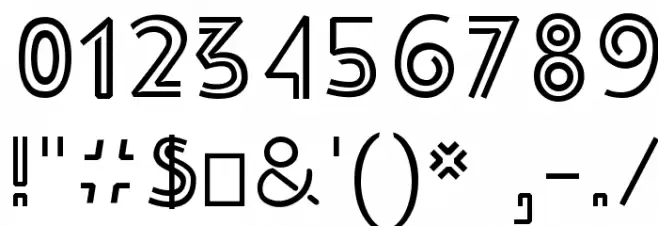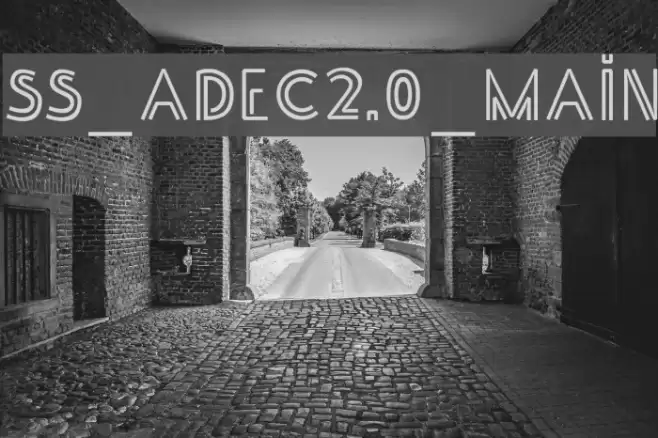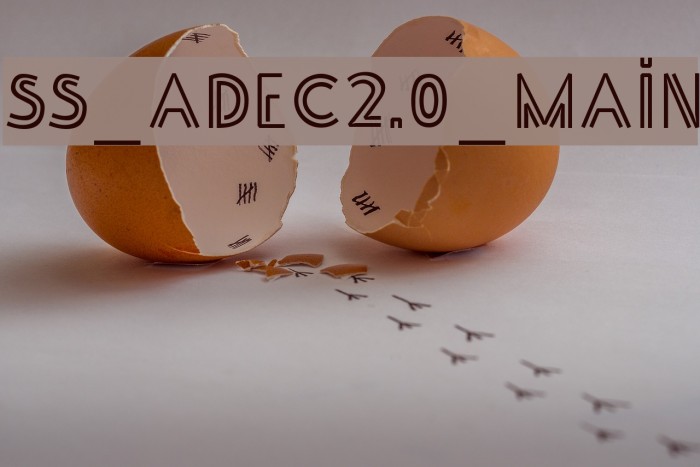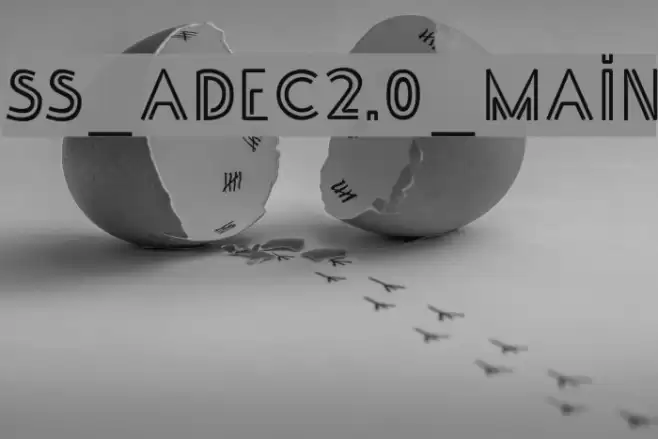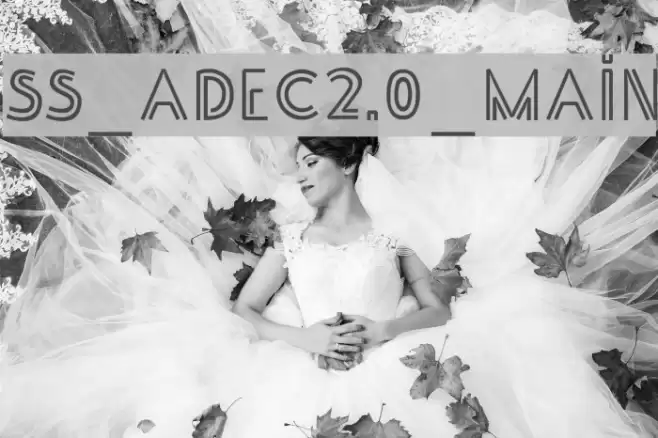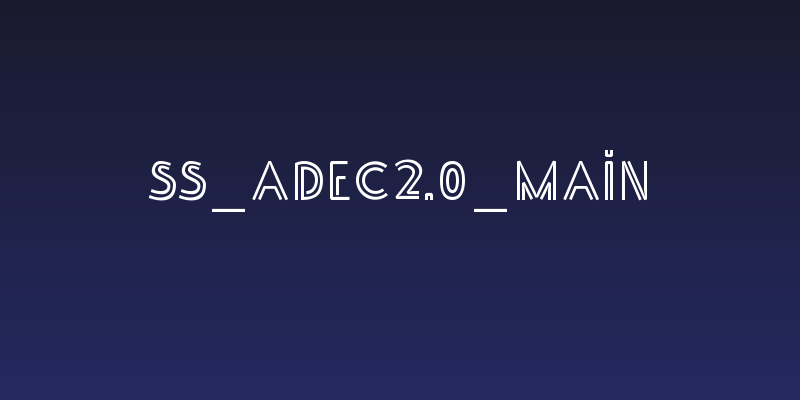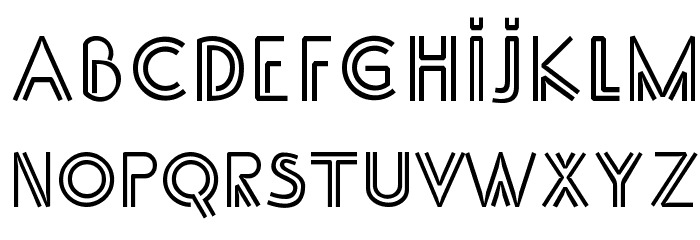
SS_Adec2.0_main Font
✎ Art Deco
SS_Adec2.0_main Description
This font features a bold, geometric design with a distinct Art Deco influence. The uppercase letters are characterized by clean, straight lines and sharp angles, creating a sense of elegance and modernity. The lowercase letters maintain the same geometric style, ensuring consistency throughout the typeface. The numbers are equally bold and geometric, with a uniform stroke width that complements the overall design. Special characters are crafted with the same attention to detail, making them seamlessly integrate with the rest of the font. The font's style is both decorative and functional, making it suitable for a variety of design applications.
| Overall Style | Modern, Art Deco |
| Proposed Projects | Ideal for branding, posters, signage, and any project that requires a touch of elegance and modernity. |